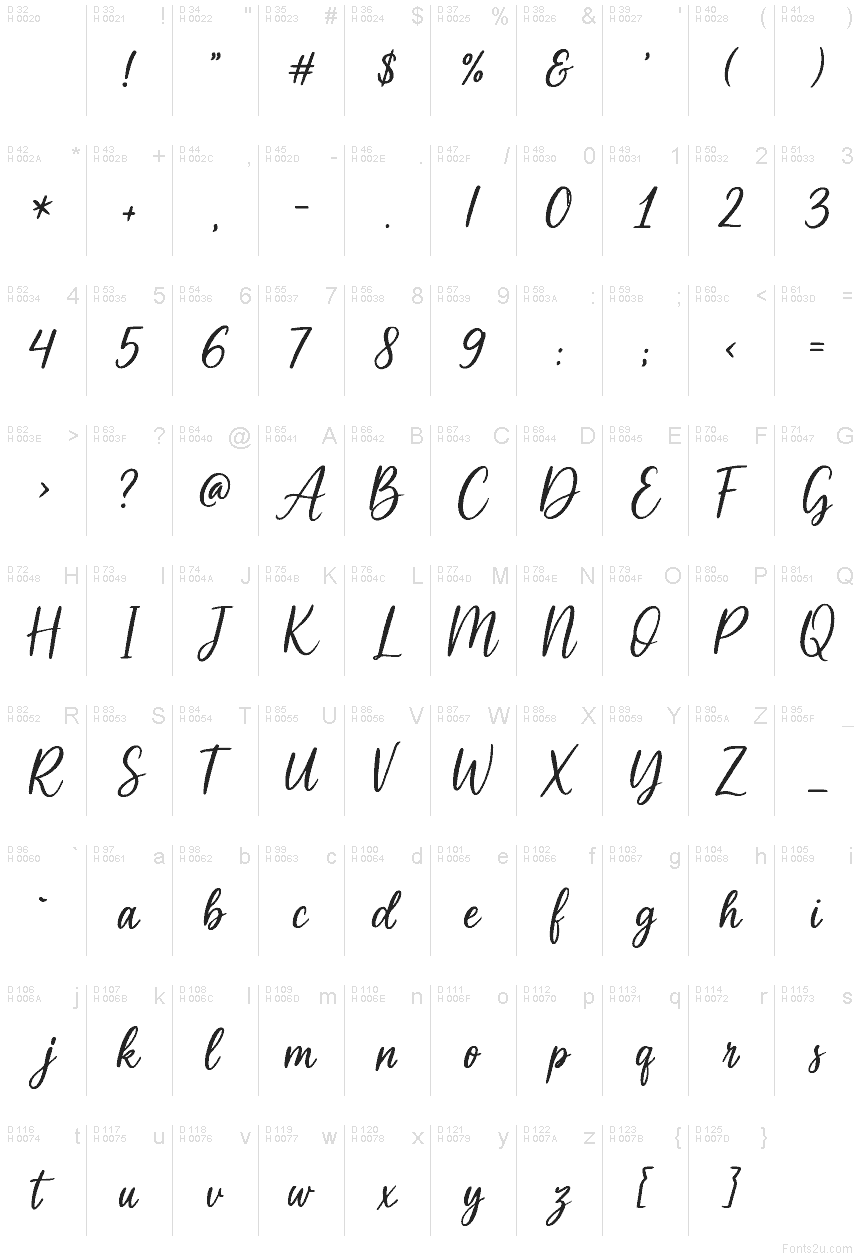
Royal Calypso
Royal Calypso font by BlackFridayFont FMF is a free handwritten font that solves the tricky balance between warmth and readability. Its smooth, inky strokes feel freshly brushed, with a lively rhythm that stays clean and steady, so headlines sing without turning messy. You get the friendly flair of a script, plus spacing that keeps words crisp even on busy layouts.
Using Royal Calypso, your brand marks, wedding invitations, product packaging, quote graphics, event posters, and social media headers gain an easy, polished charm. The strokes carry a gentle texture that adds tactility on print and screen, and the flow holds up beautifully at larger sizes. Pair this free font with a simple geometric sans for body copy, and let Royal Calypso handle the spotlight.